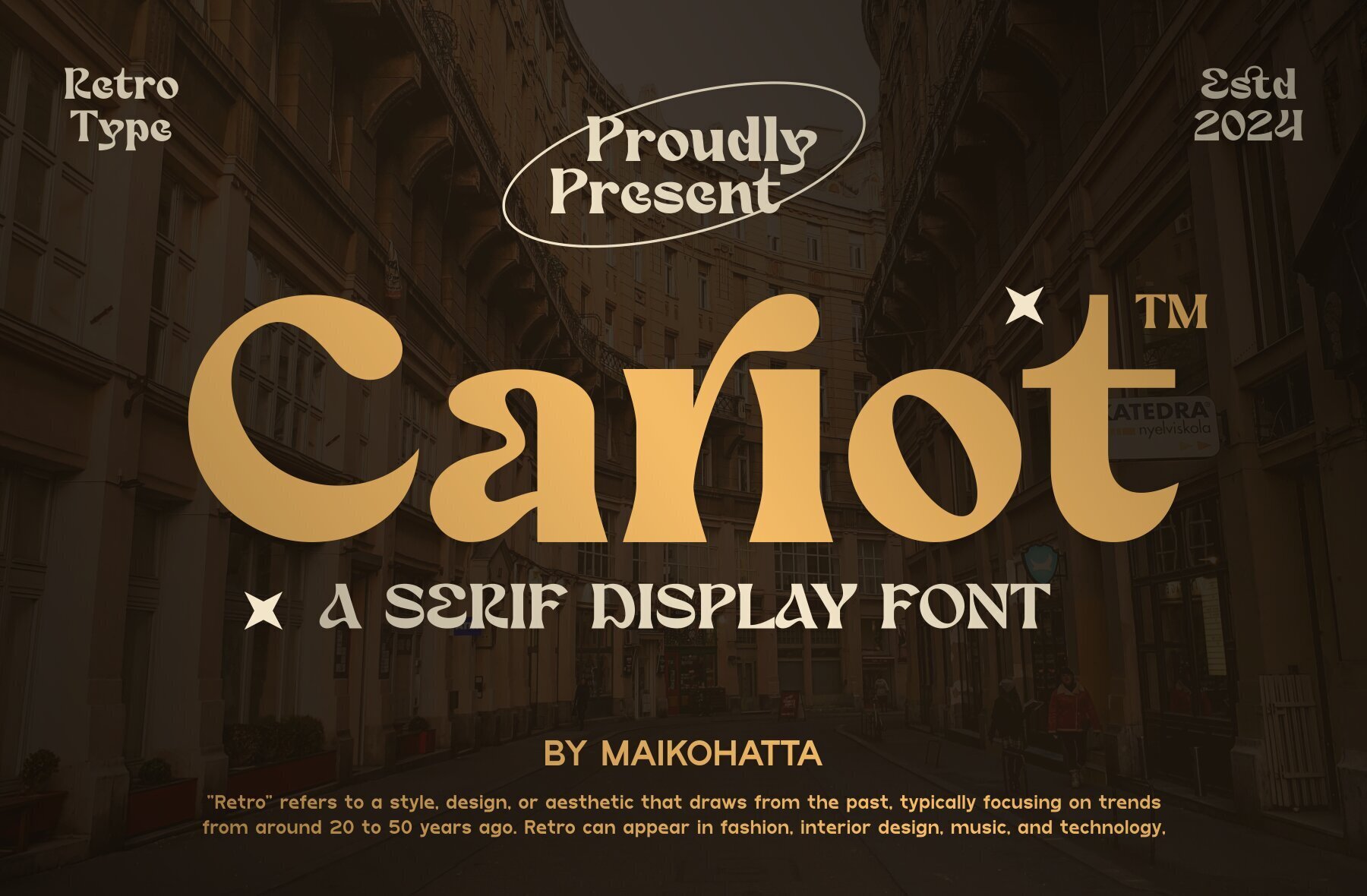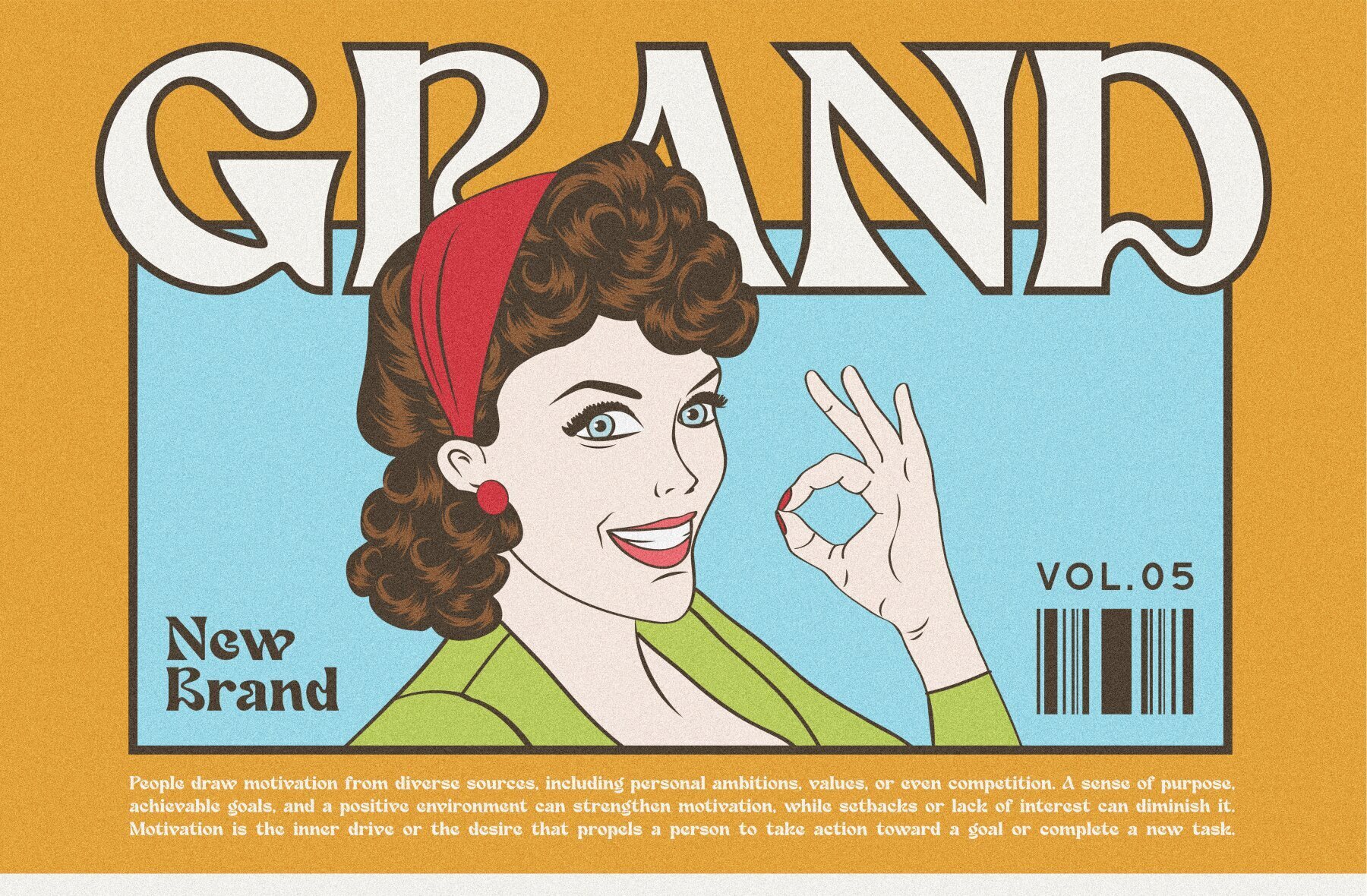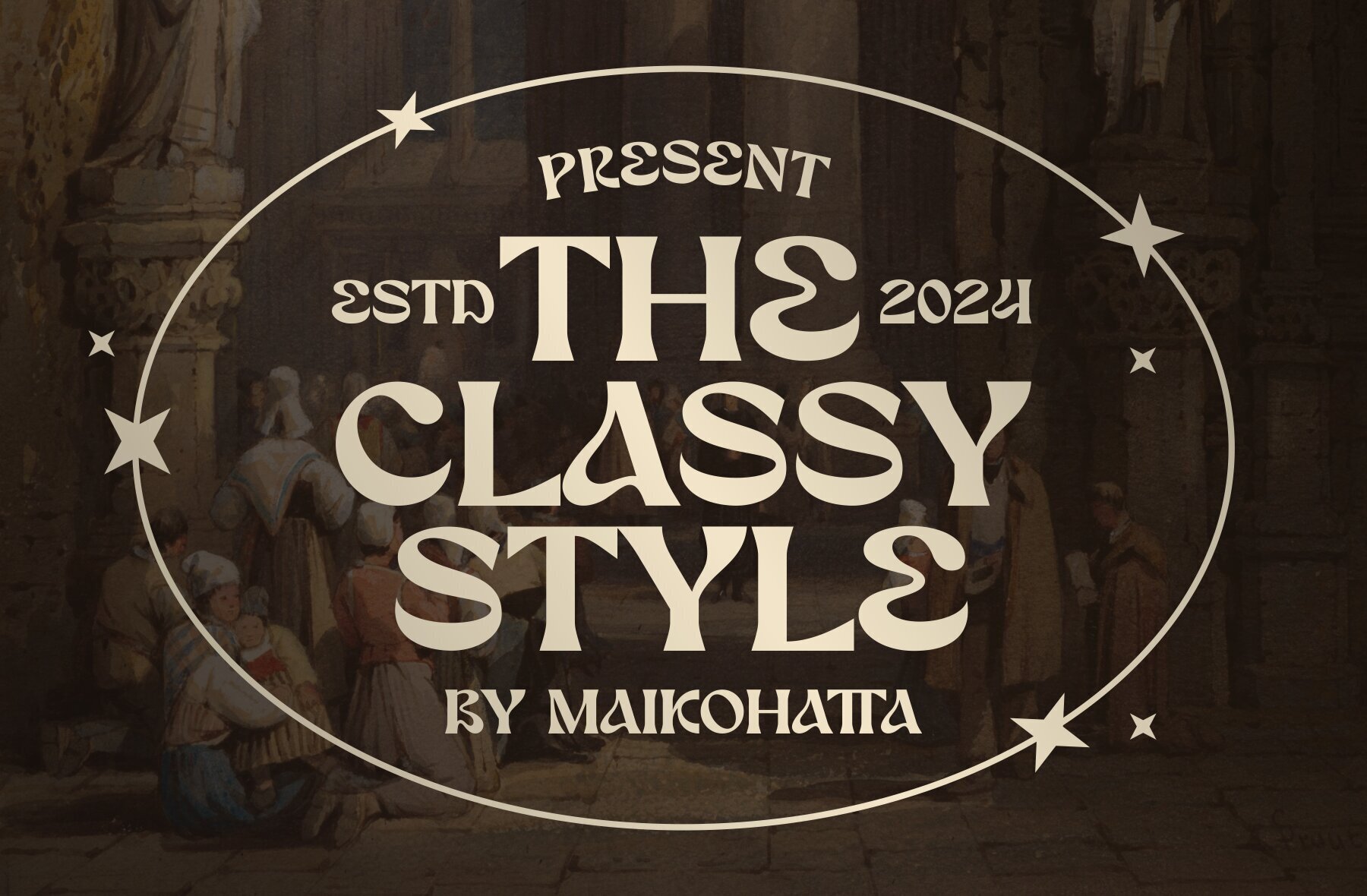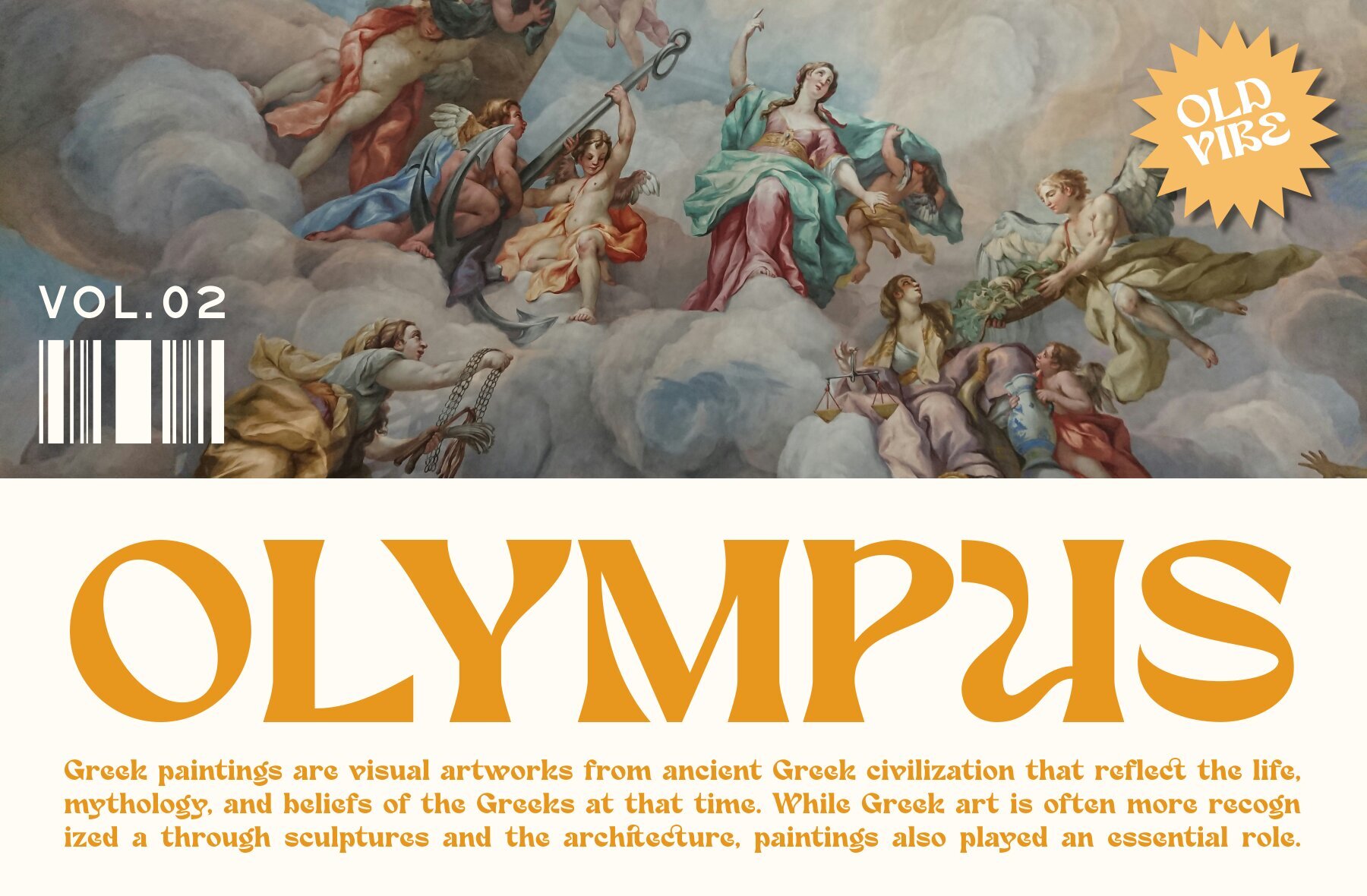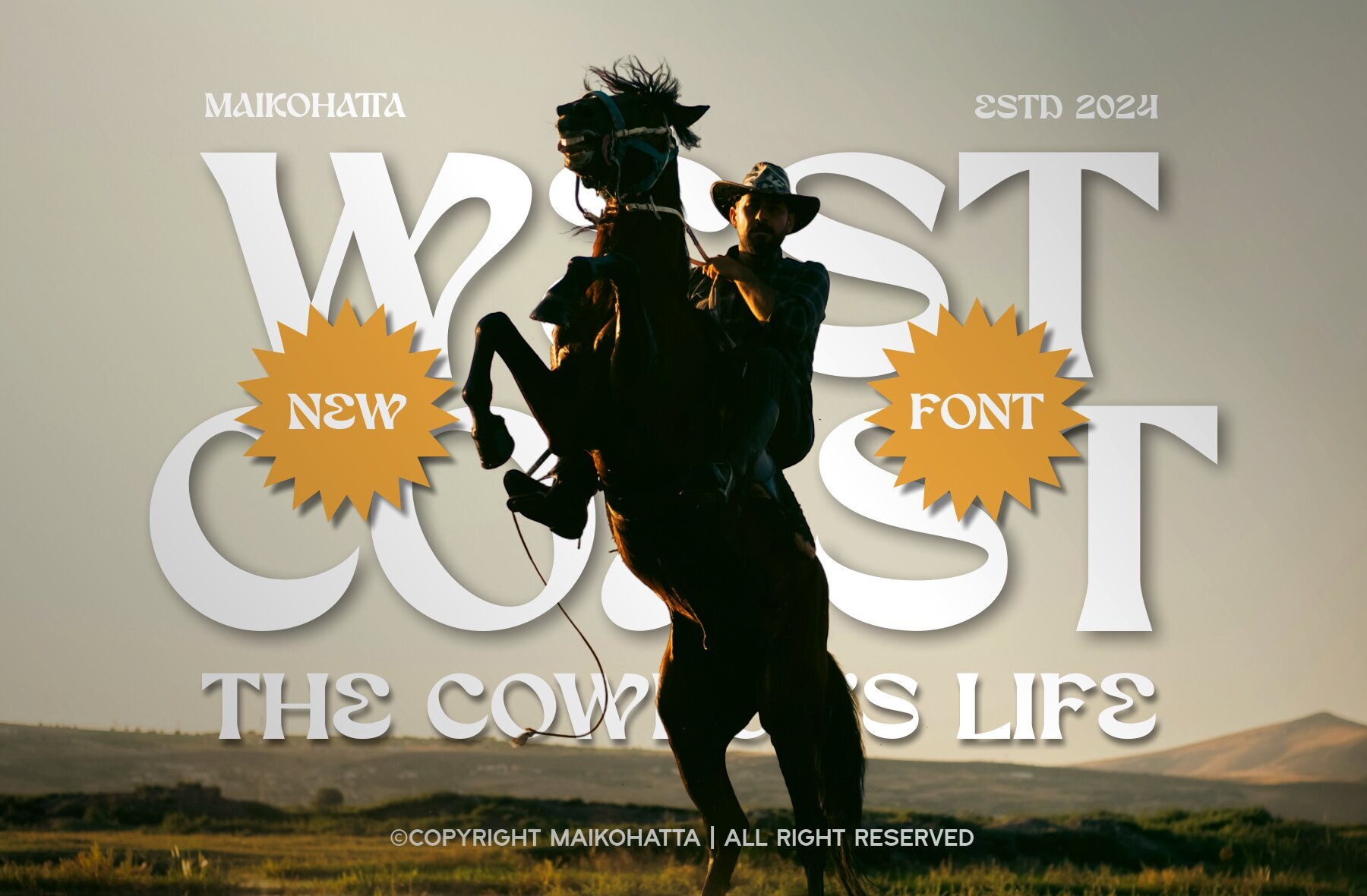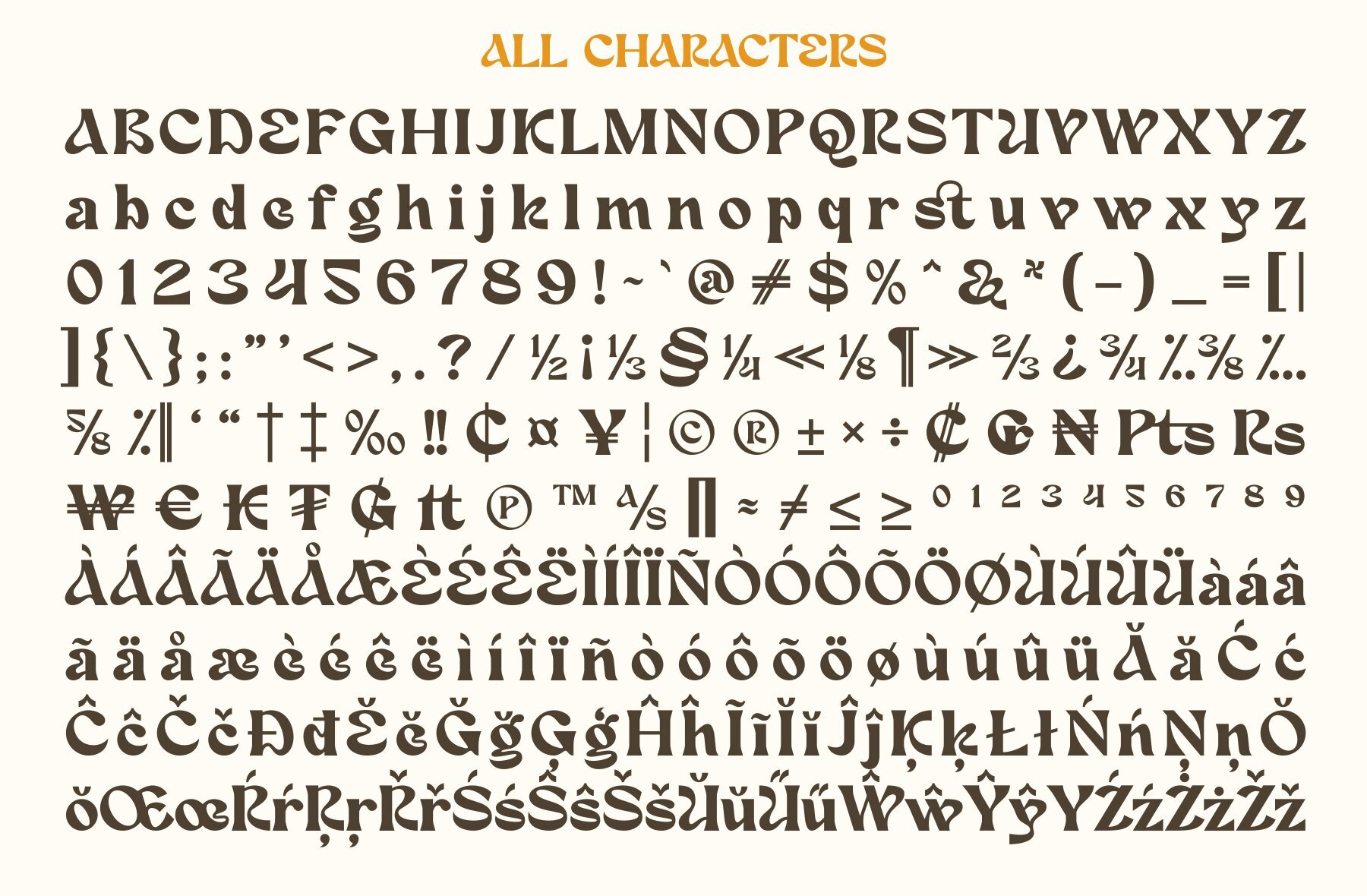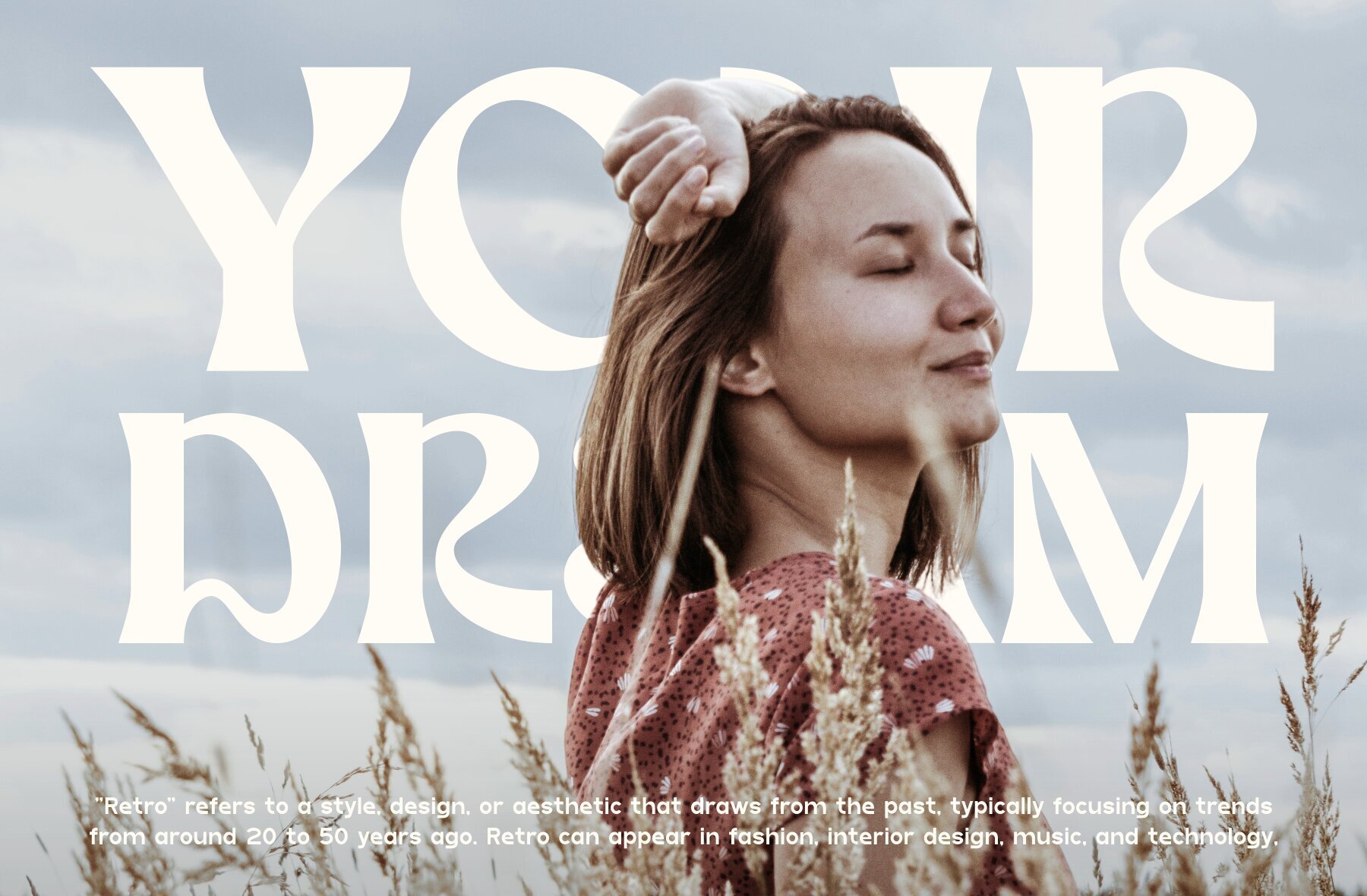
Cariot Font
Cariot
Cariot is a Serif Display Font that combines balanced stroke thickness with fine details, resulting in visually appealing and highly legible text. Its modern serif design showcases a bold contrast between thick and thin lines, offering an understated touch that effortlessly captures attention. Ideal for designers seeking a font that prioritizes readability while maintaining a distinct style, Cariot is both versatile and elegant.
This font includes uppercase and lowercase letters, supporting multilingual characters, which makes it suitable for diverse design projects. Additionally, Cariot comes with ligatures, enhancing its functionality for creative typography. Whether used in branding, editorial design, or digital interfaces, this serif font stands as a reliable tool in a designer's toolkit, blending contemporary aesthetics with classic typography features.